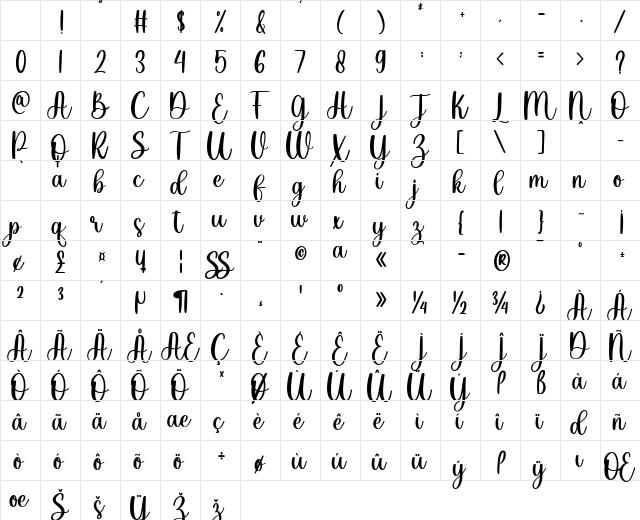
Dearlove Regular Free Font
Dearlove Regular
Designer: Muhamad FIkry Nuralif
Design Context for Dearlove
Dearlove is a composed and adaptable typeface that performs quietly and consistently across a wide range of design contexts.